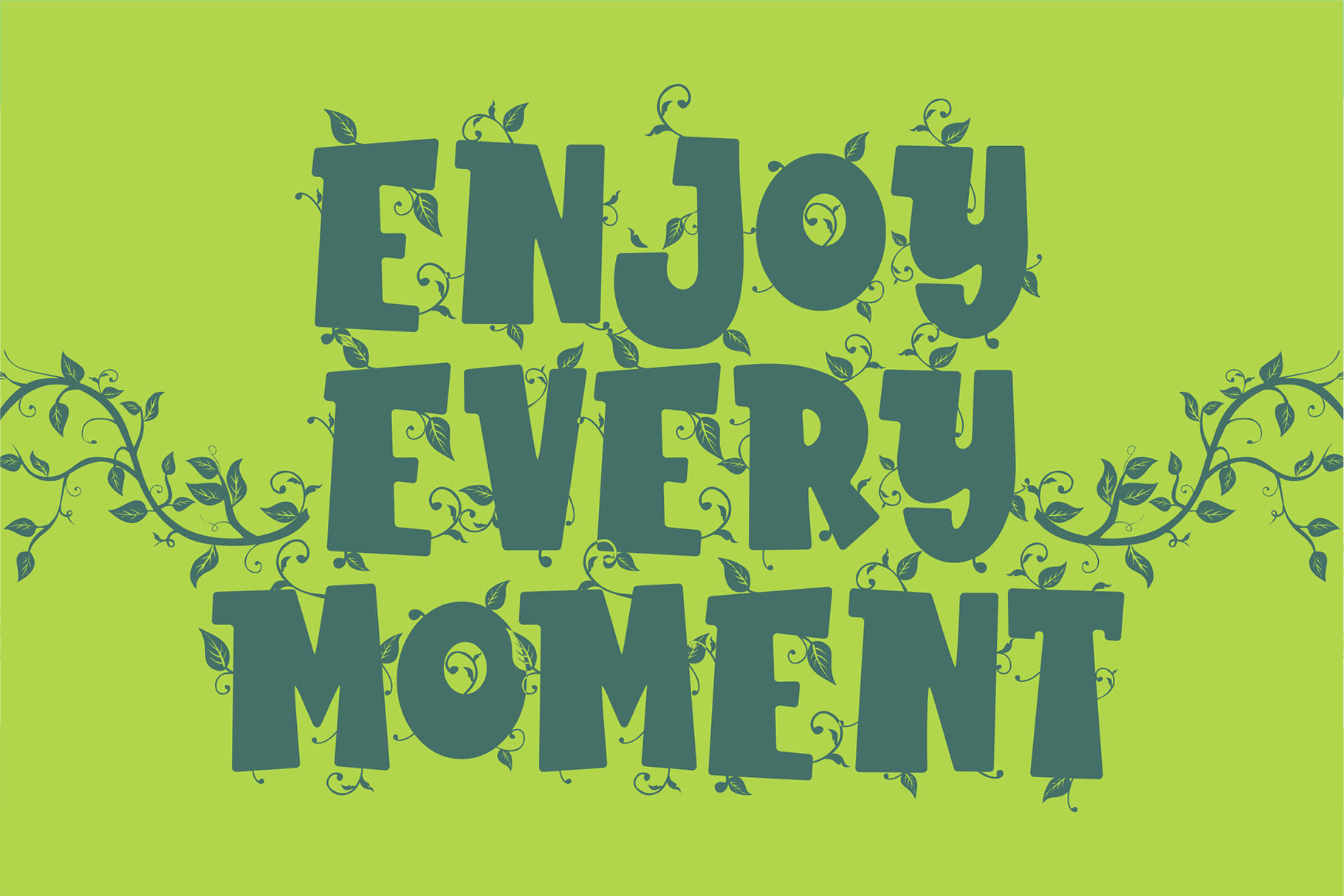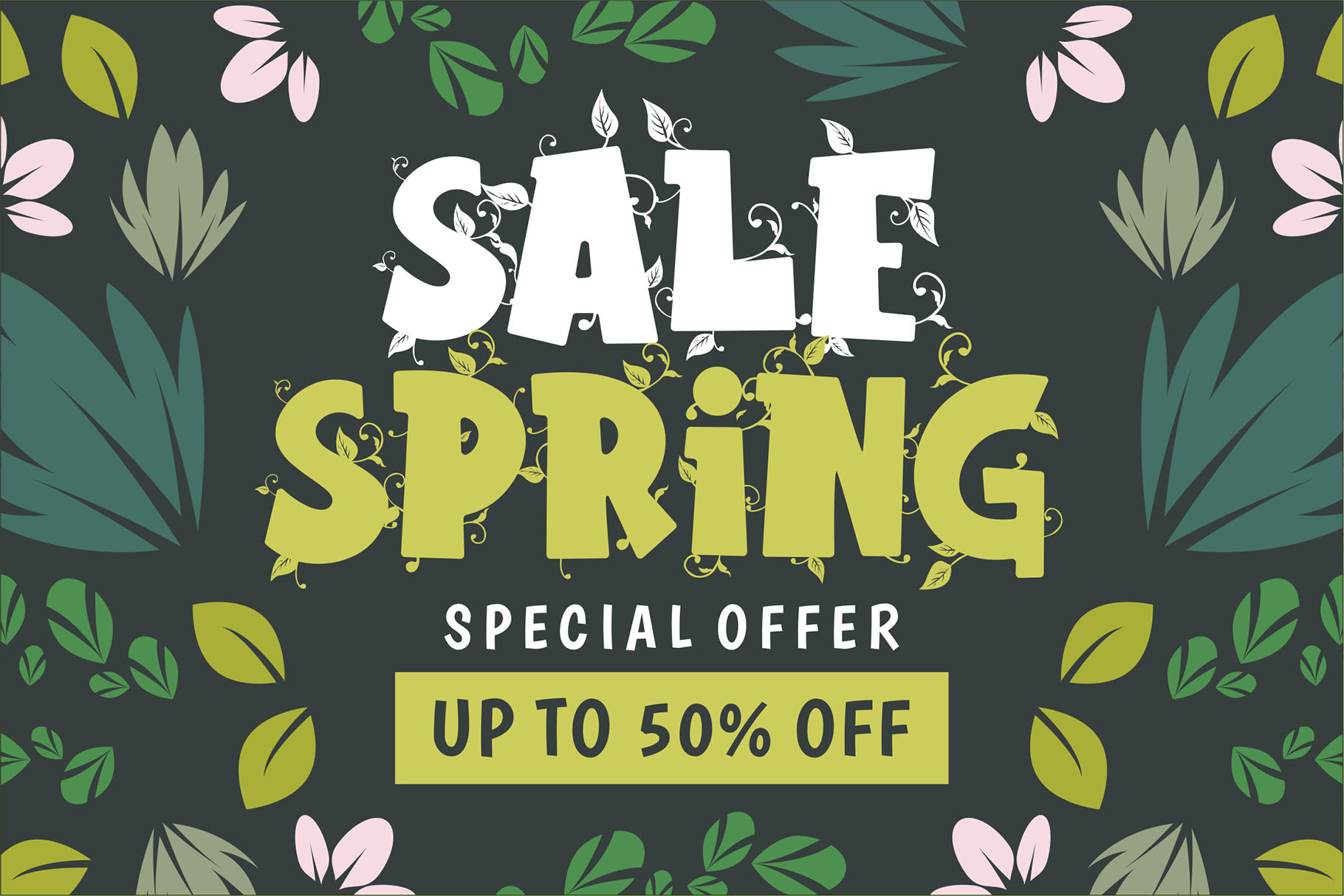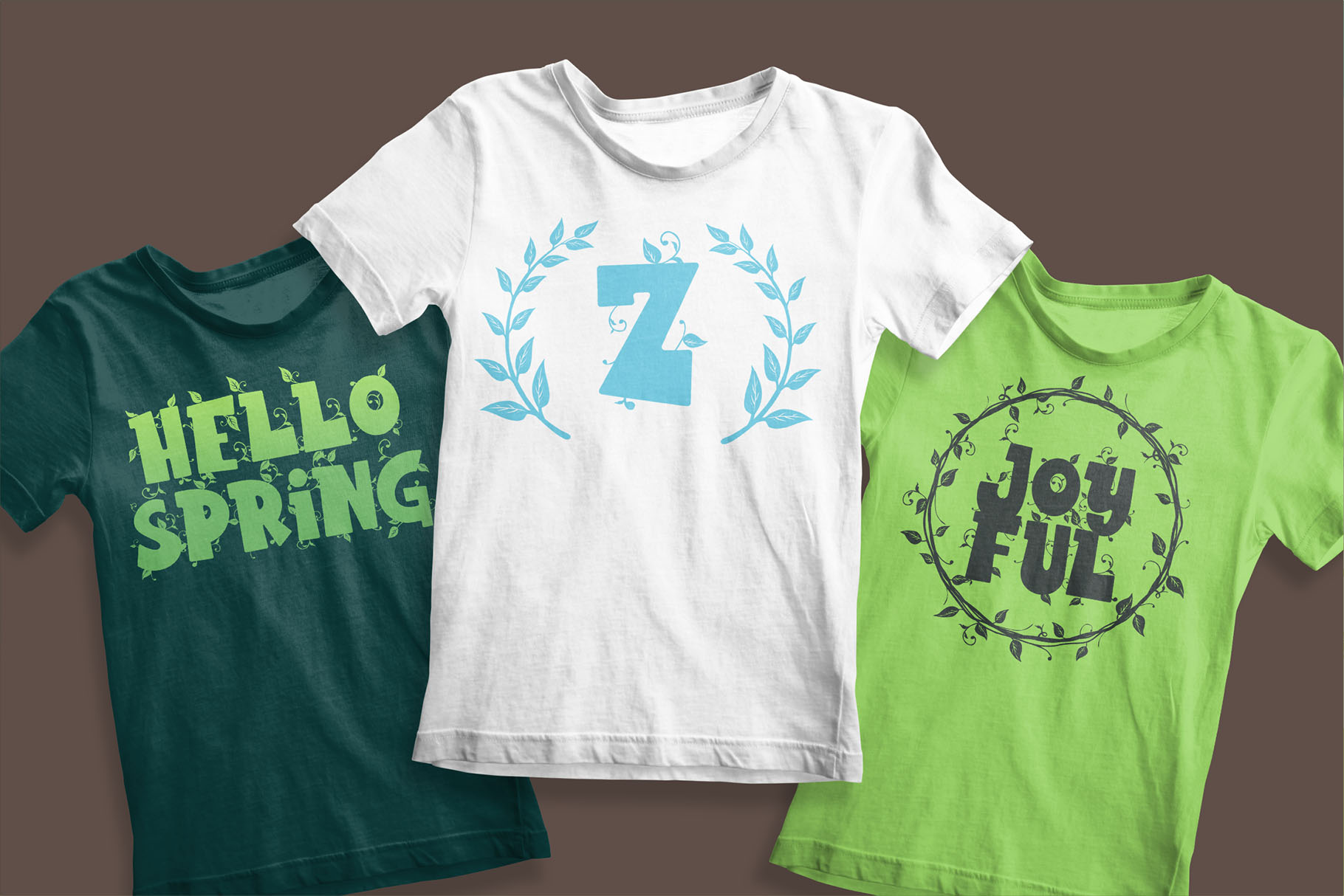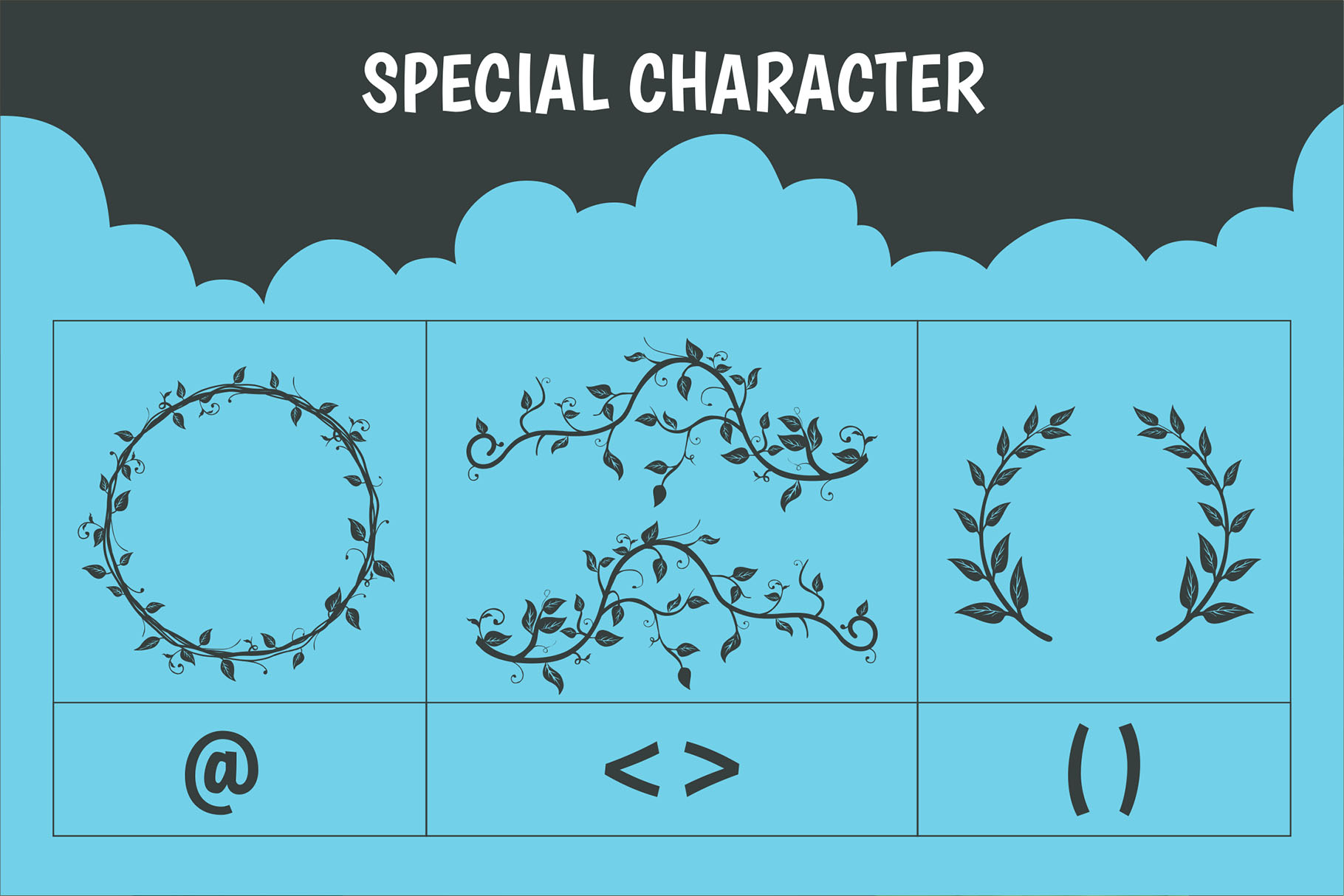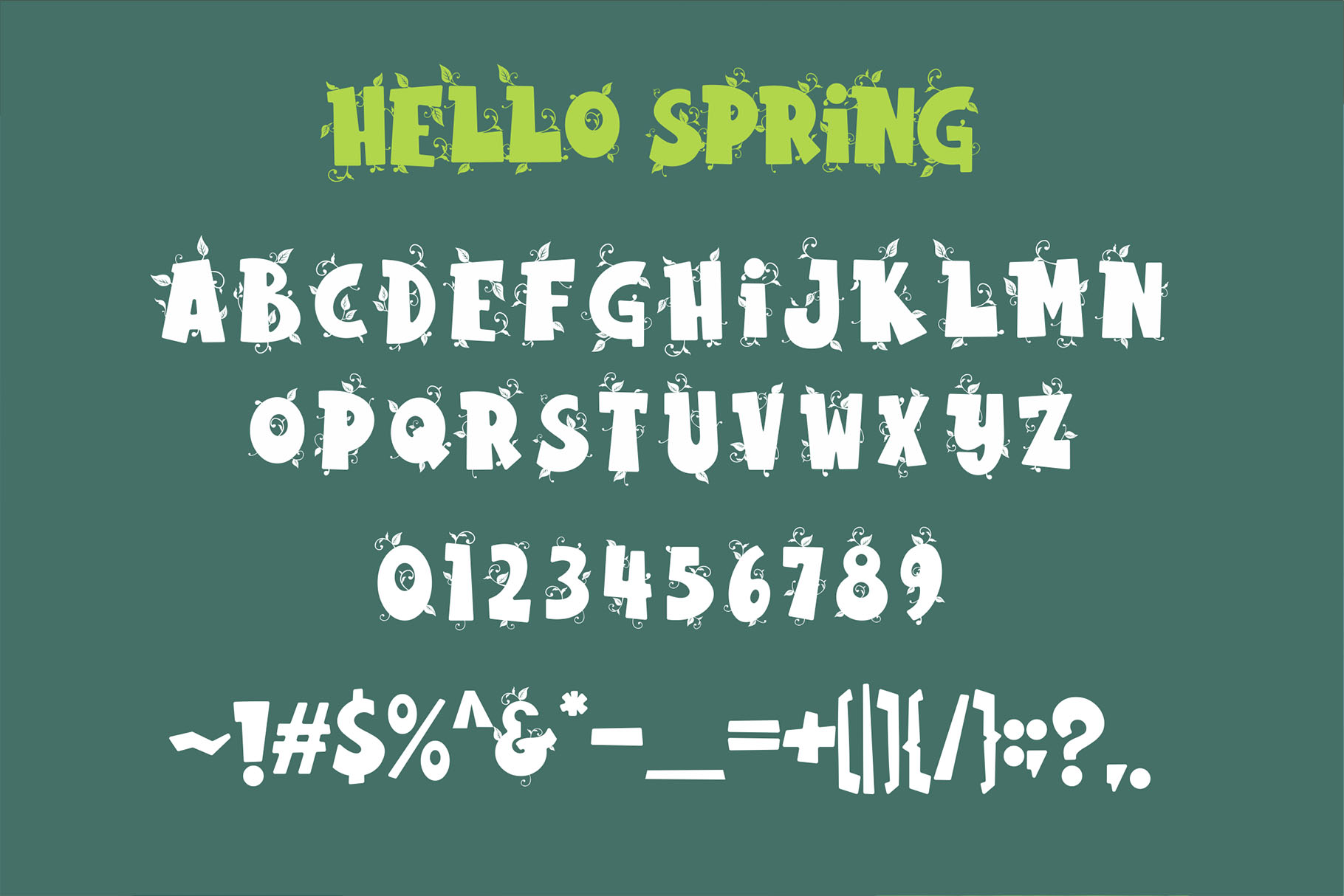
Hello Spring is a decorative display font inspired by the warmth of the new spring. The unique characteristics of Rabbito make it suitable for various purposes such as quotes, t-shirt designs, flyers, YouTube channels, labels, logos, and much more!